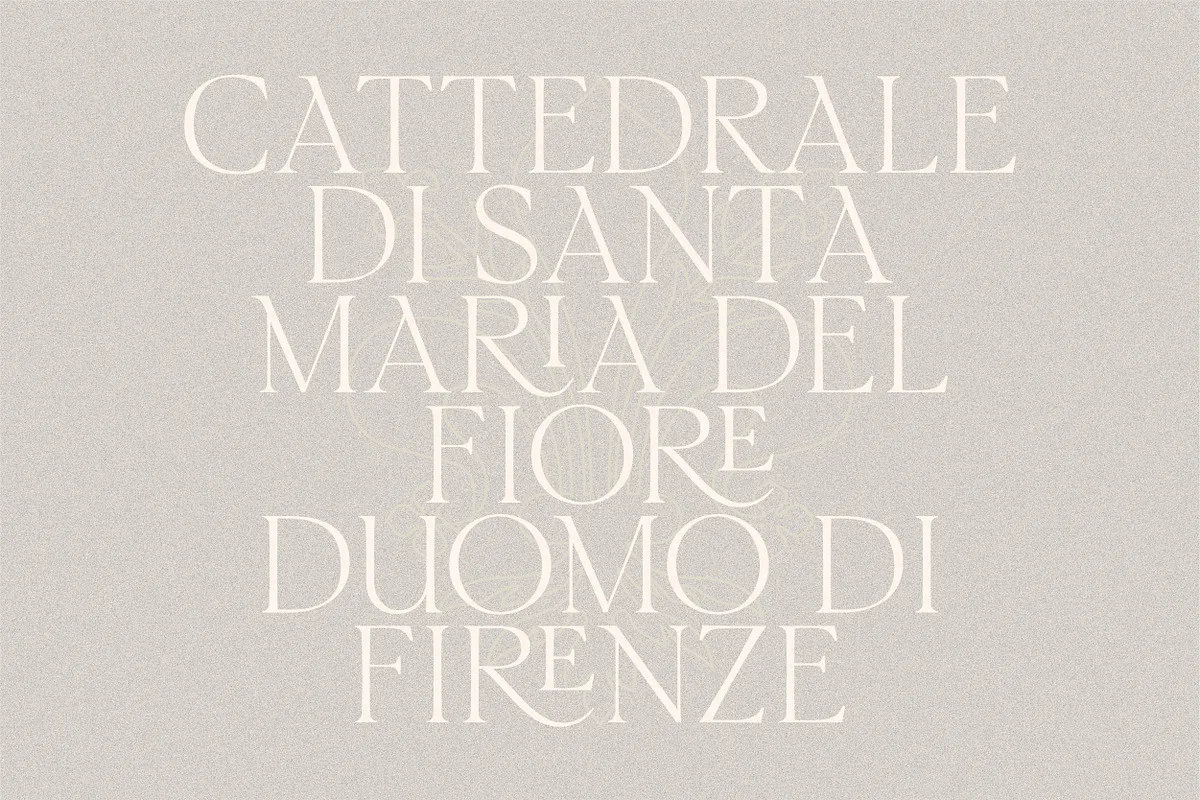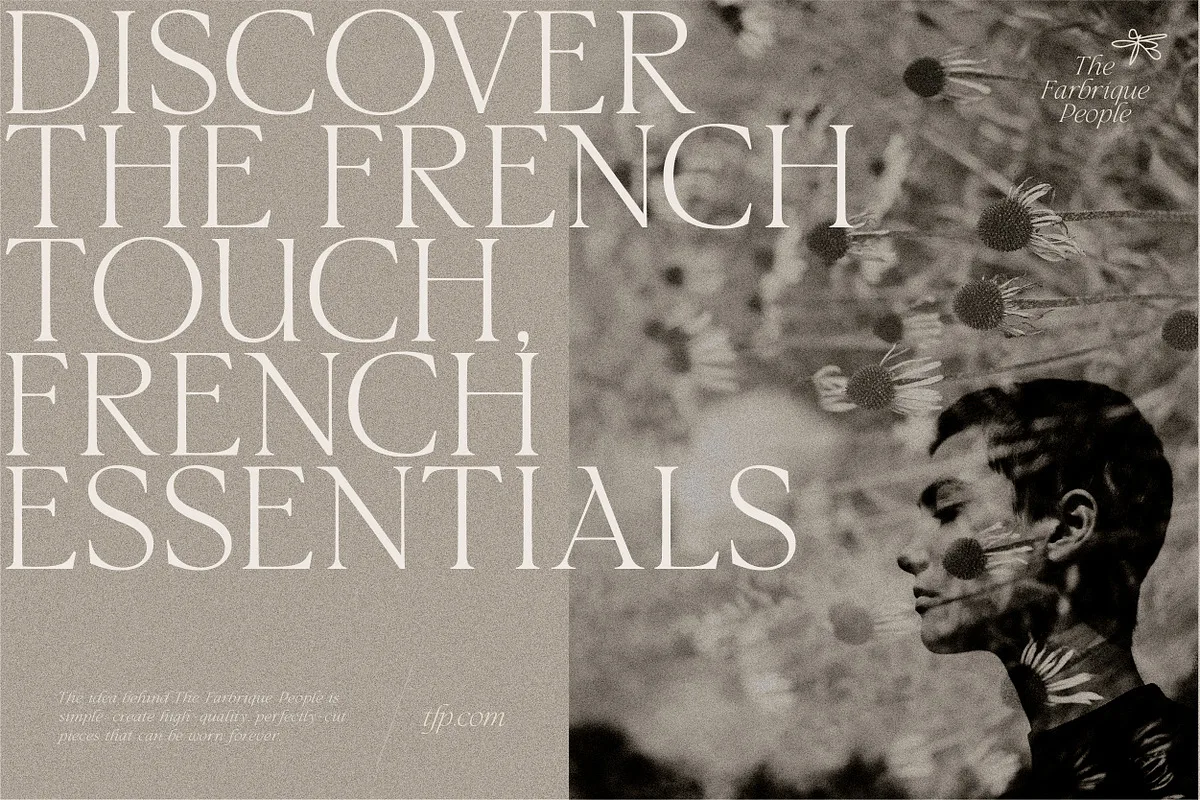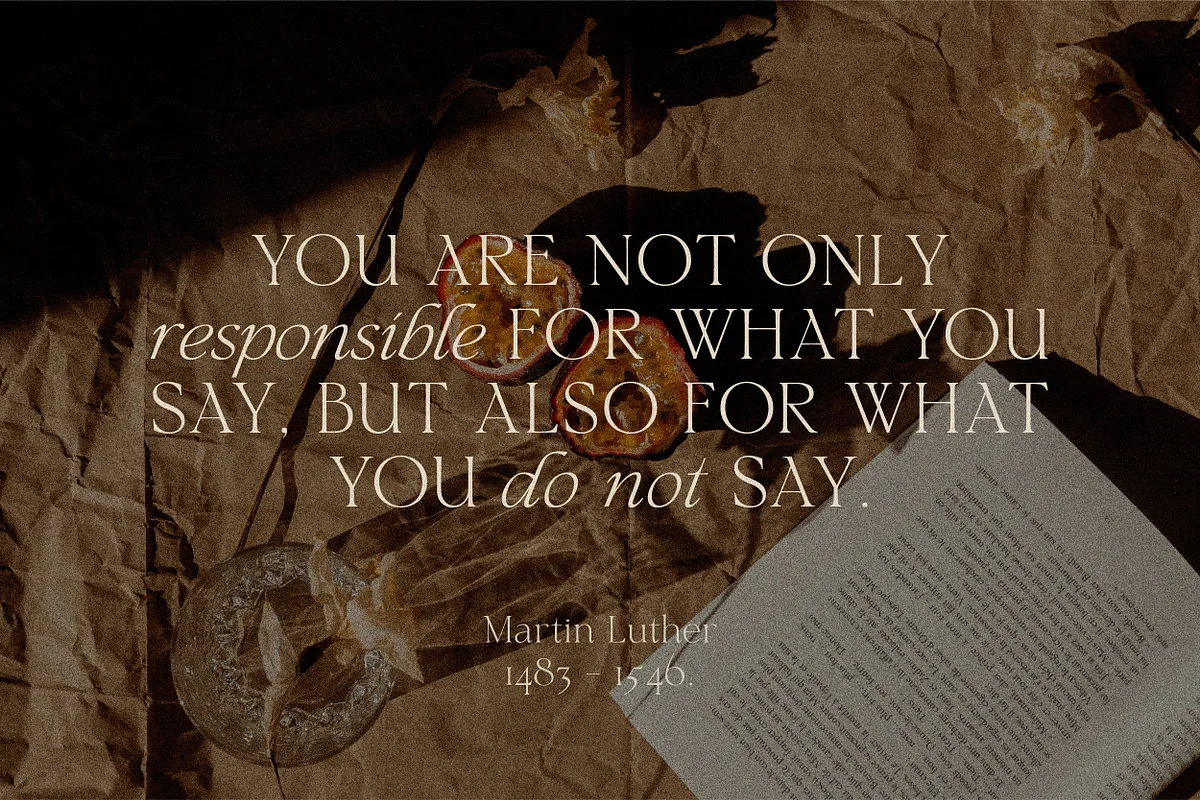
Florentino is a Renaissance Era calligraphic-inspired serif with a touch of elegance. Specially designed for retro, elegant projects, Florentino is perfectly suitable for creating classic designs such as logos, packaging, editorials, and more.